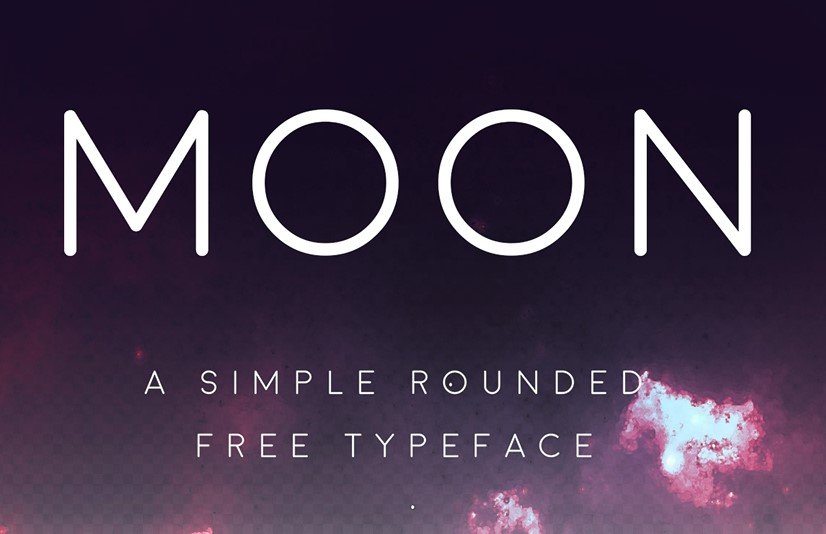
We are about to introduce you to the sans-serif typeface that is famous for its copy and paste function known as the moon font and this typeface was created by  Jack Harvatt.
This is a classy urban sans serif typeface that has a huge font family ad it also comes with more than 240 characters that work quite well with the styling of the neo sans font and the bold weight of this typeface is available for free.
The symbols that are present with this typeface are great to be used inside the making of emojis. the text generation feature this typeface provides is just awesome.
You can easily pair this typeface with many different script and serif typefaces like black ops one font and make the use of this for the making of gorgeous logos & titles or any other project you are working on.
View Of Moon Typeface
Before move ahead, you can see the sample of this in the image given below to see how it will looks when it will use in your graphic designs project.
Moon Font View
Due to its rounded texture, you can use it in your projects like ambitious heading, ebook covers, brand designs, cloth printing, official cards, precise emblems, and so on.